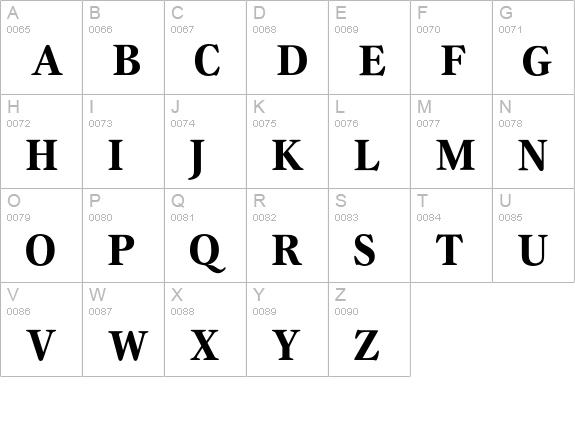
GammaBold Font Details
GammaBold is a stunning and versatile font that exudes a sense of boldness and sophistication. With its clean lines and strong curves, this font is perfect for adding a modern and sleek touch to any design project. Whether you're working on a logo, website, or branding materials, GammaBold will effortlessly elevate your visuals to the next level. What sets GammaBold apart is not only its striking aesthetics, but also its accessibility. This font is freely available to download at FontsMarket.com, making it easily accessible to designers, creatives, and enthusiasts alike. By offering this font for free, the creators of GammaBold aim to provide a valuable resource that empowers individuals to express their creativity without constraints. With its extensive character set, including uppercase and lowercase letters, numbers, punctuation marks, and special symbols, GammaBold offers endless possibilities for creating unique and eye-catching typography. Whether you're aiming for a bold and impactful headline or a sleek and professional body of text, this font has got you covered. GammaBold's versatility extends beyond its design capabilities, as it effortlessly adapts to various design styles and themes. From futuristic and cutting-edge to classic and timeless, this font seamlessly integrates into any project, adding a touch of sophistication and professionalism. Download GammaBold today from FontsMarket.com and unlock the potential to create visually stunning designs that leave a lasting impression. With its bold and captivating presence, this font is sure to become a go-to choice for designers seeking a blend of style, accessibility, and creativity. Embrace the freedom of expression with GammaBold and let your designs shine.